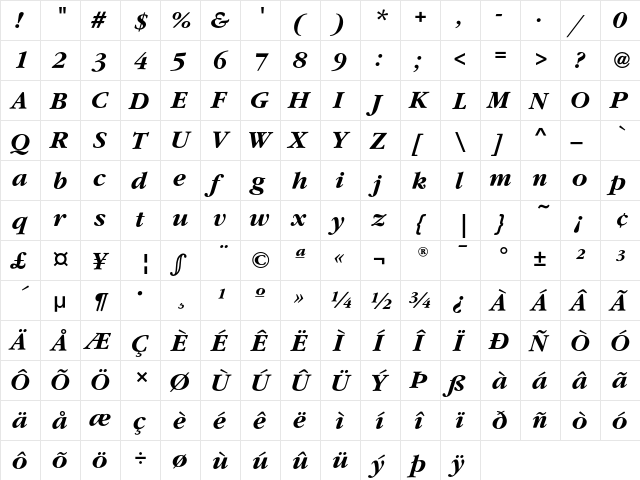
GaramondEF BoldItalic Font Preview
GaramondEF BoldItalic
Design Context for GaramondEF Typeface
GaramondEF takes a measured approach to typography — its balanced proportions and neutral character make it a reliable workhorse for both digital and print work. Its italic angle brings a sense of urgency and motion to the letterforms. Its bold stroke weight gives it real presence on the page.
Pro Tip: Use GaramondEF for emphasis, pull quotes, and subheadings where its slanted energy can add rhythm to the layout.